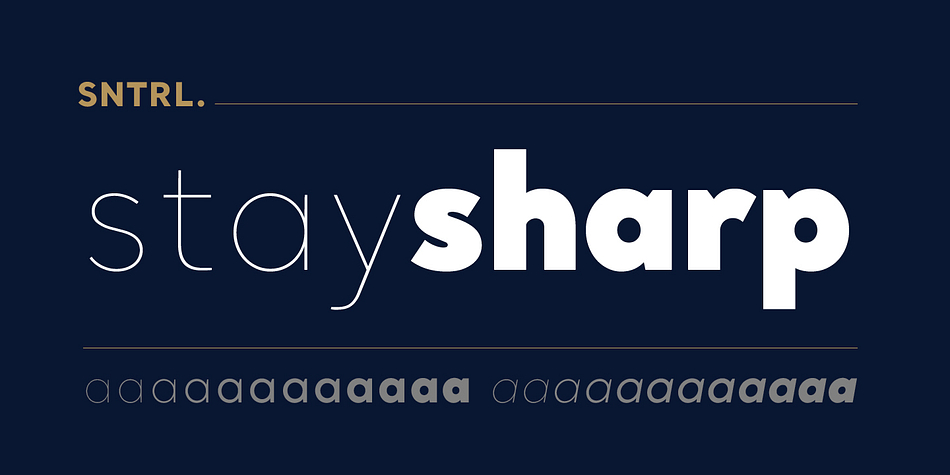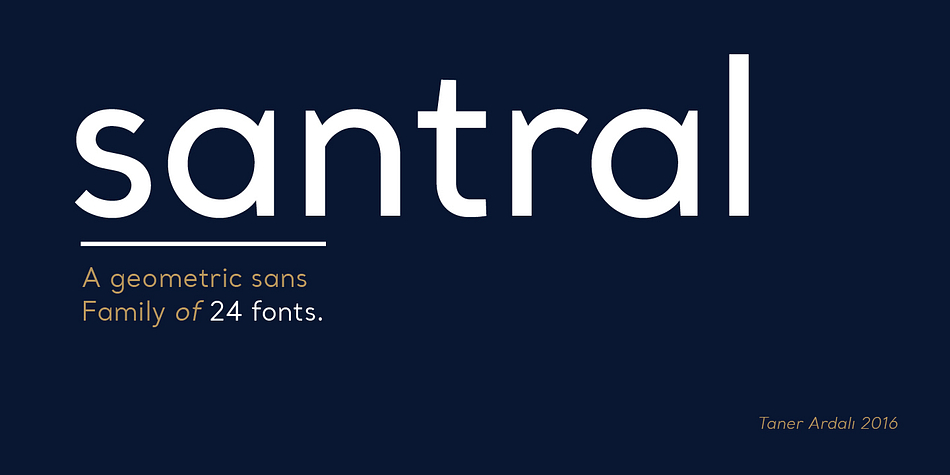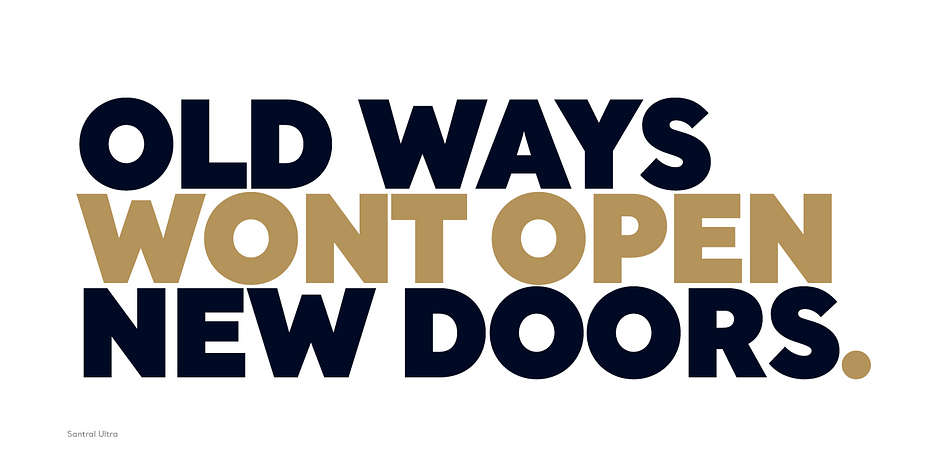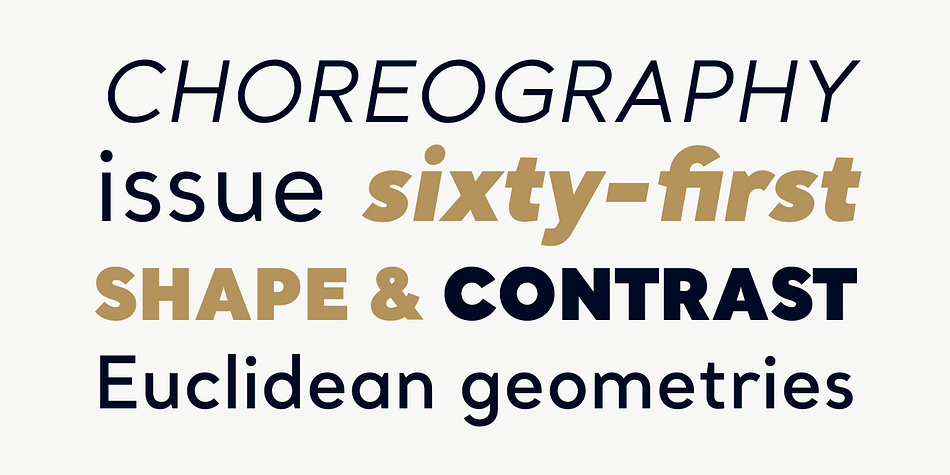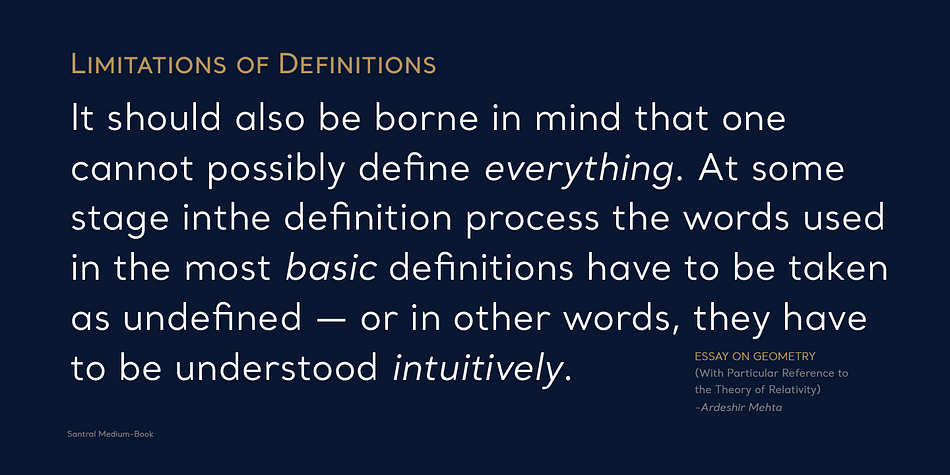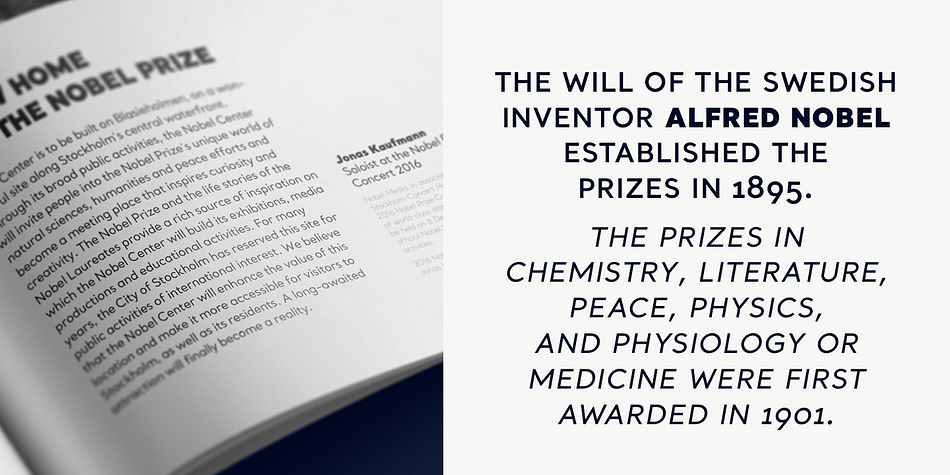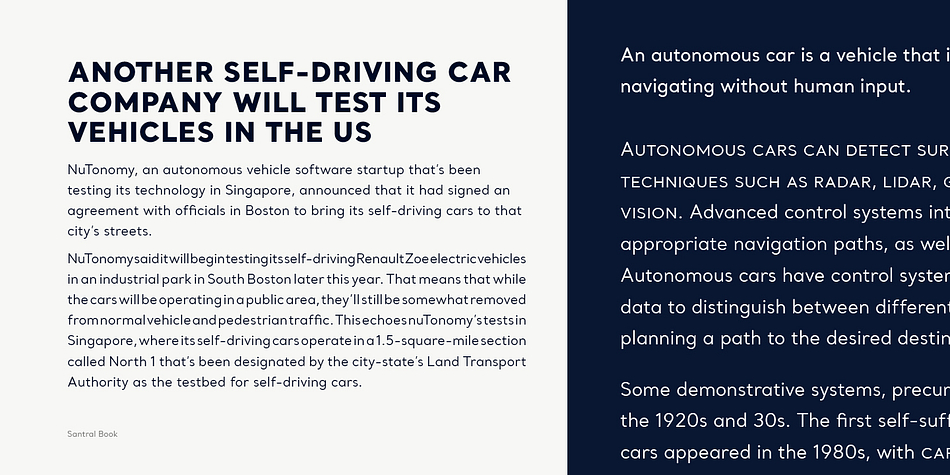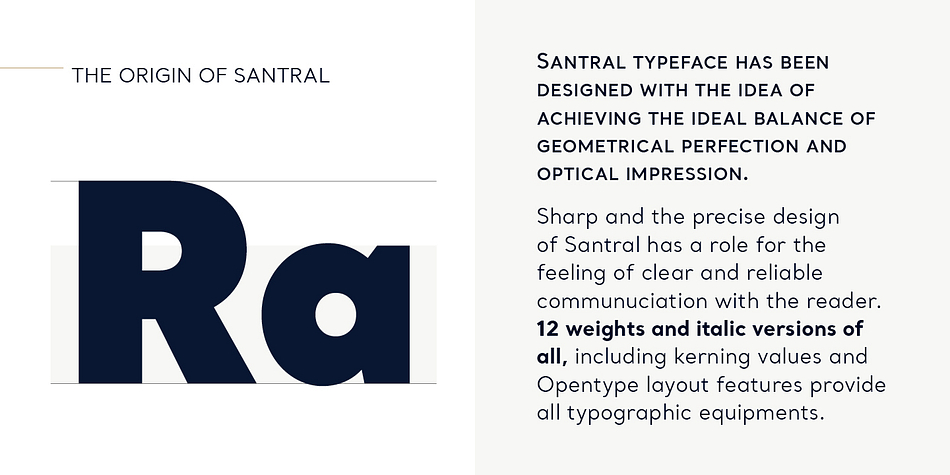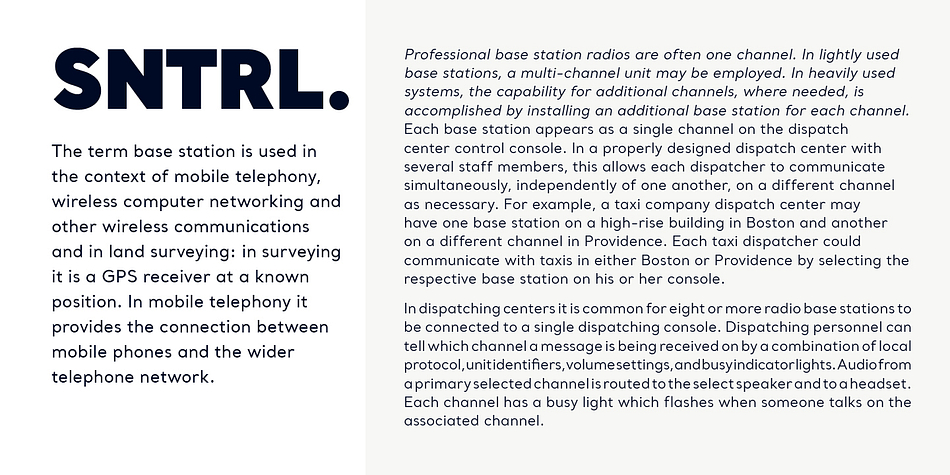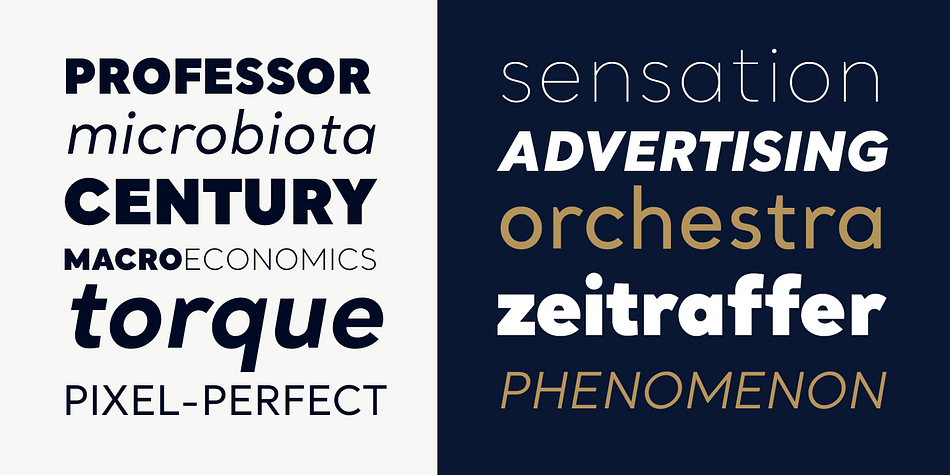
Santral is a sans serif font family. This typeface has twenty-four styles and was published by Taner Ardali.
Santral typeface has been designed with the idea of achieving the ideal balance of geometrical perfection and optical impression.
The sharp and precise design of Santral leads to a clear and reliable communuciation with the reader. 12 weights and italic versions, including kerning values and Opentype layout features provide all typographic equipments to get the best result for the typographic layouts.